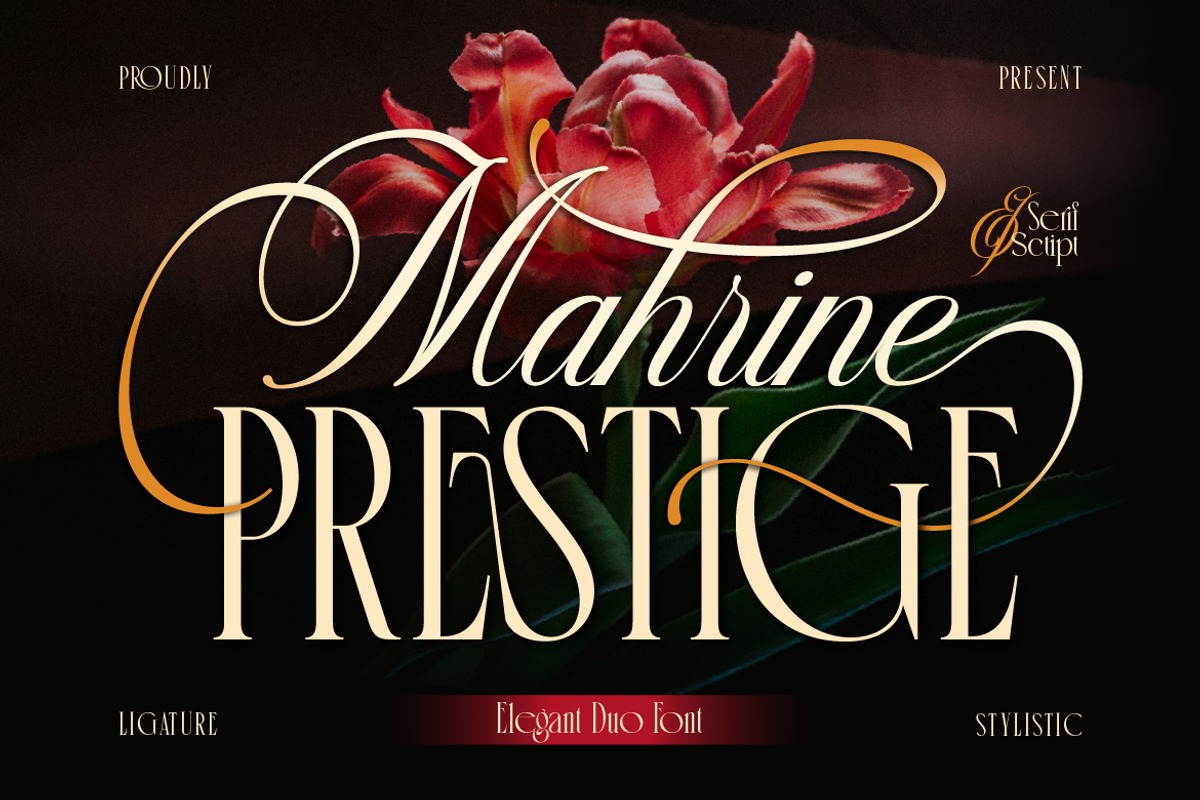
Mahrine Prestige – Elegant Serif Font
Mahrine Prestige – Elegant Serif Font is a clean and thoughtfully built typeface that works seamlessly for both professional branding and everyday creative uses. Mahrine Prestige is a refined duo font that combines a high-contrast serif with a flowing script, designed to create a timeless and luxurious typographic look.
The serif features clean structure, elegant proportions, and sharp contrast, making it perfect for sophisticated headlines and editorial layouts. Meanwhile, the script brings a graceful touch with smooth curves and expressive swashes, adding personality without overpowering the design.
Together, they create a harmonious pairing that works beautifully across a wide range of creative projects.